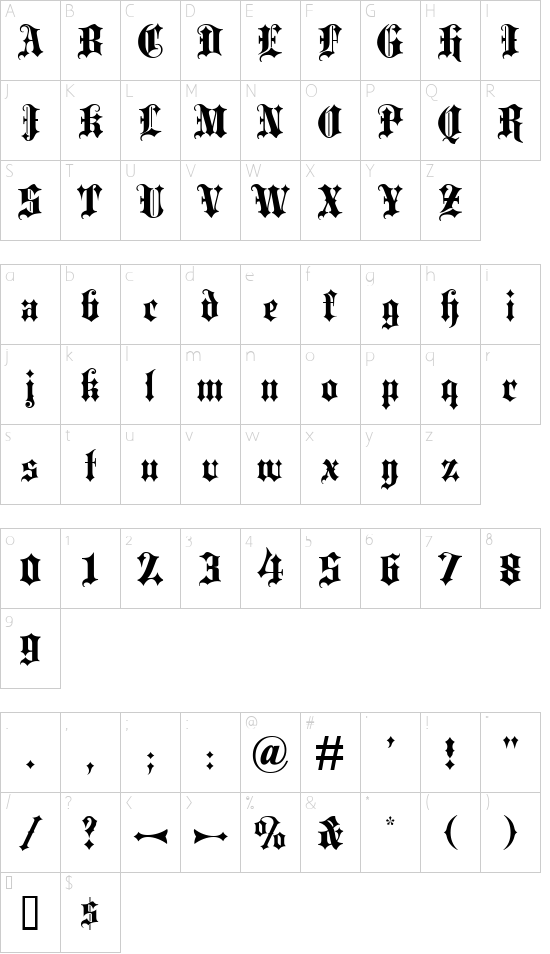
Creativefabrica Blackletter Extrabold Font Potoshop. The blackletter extrabold font contains 247 beautifully designed characters. Please use the pulldown menu to view different character maps contained in this font. Download the blackletter extrabold free font. Detailed information on the blackletter extrabold font: It is a western calligraphy style that was used in europe from 1100s to the 1600s. ✔️ customize your own preview on ffonts.net to make sure it`s the right one for your designs. Fontpalace.com offers largest database of free fonts. Download blackletter font family · free for commercial use · includes blackletter extrabold, shadow · copyright (c) typographer mediengestaltung, 2001. Enter some text in the box below, then click the preview button. Blackletter extrabold font available in ttf format for you to download. Blackletter extrabold font custom preview tool. Blackletter fonts have letters that are very bold and ornate. Blackletter extrabold by copyright c typographer mediengestaltung, 2001. Download free blackletter extrabold font (79 kb). Blackletter family consisting of 3 fonts.
The blackletter extrabold font contains 247 beautifully designed characters.
Reaktif Extra Bold Italic Font What Font Is. Download free blackletter extrabold font (79 kb). Blackletter extrabold font custom preview tool. Please use the pulldown menu to view different character maps contained in this font. Blackletter fonts have letters that are very bold and ornate. Blackletter family consisting of 3 fonts. Blackletter extrabold by copyright c typographer mediengestaltung, 2001. It is a western calligraphy style that was used in europe from 1100s to the 1600s. ✔️ customize your own preview on ffonts.net to make sure it`s the right one for your designs. Detailed information on the blackletter extrabold font: The blackletter extrabold font contains 247 beautifully designed characters. Download the blackletter extrabold free font. Enter some text in the box below, then click the preview button. Download blackletter font family · free for commercial use · includes blackletter extrabold, shadow · copyright (c) typographer mediengestaltung, 2001. Blackletter extrabold font available in ttf format for you to download. Fontpalace.com offers largest database of free fonts.
Blackletter Extra Bold Free Font Maisfontes Com. Enter some text in the box below, then click the preview button. Blackletter extrabold by copyright c typographer mediengestaltung, 2001. The blackletter extrabold font contains 247 beautifully designed characters. Download the blackletter extrabold free font. Download free blackletter extrabold font (79 kb). Blackletter family consisting of 3 fonts. Fontpalace.com offers largest database of free fonts. Download blackletter font family · free for commercial use · includes blackletter extrabold, shadow · copyright (c) typographer mediengestaltung, 2001. Blackletter extrabold font available in ttf format for you to download. Detailed information on the blackletter extrabold font: Blackletter fonts have letters that are very bold and ornate. It is a western calligraphy style that was used in europe from 1100s to the 1600s. Blackletter extrabold font custom preview tool. ✔️ customize your own preview on ffonts.net to make sure it`s the right one for your designs. Please use the pulldown menu to view different character maps contained in this font.